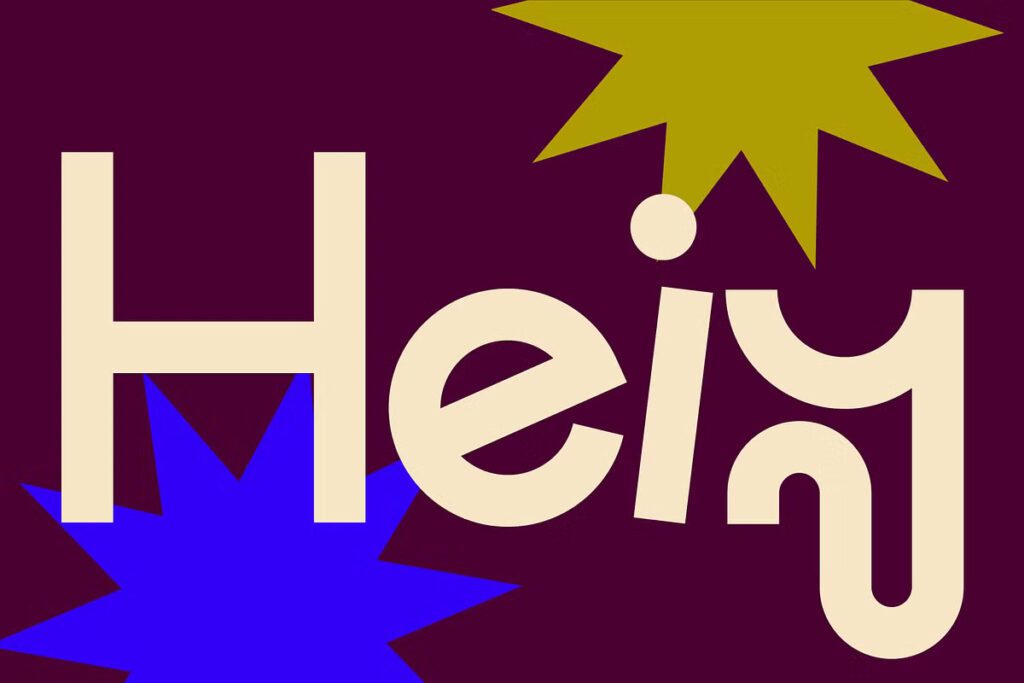
Heiy Typeface: A Playful and Characterful Display Font
When you need to inject a sense of fun and creativity into your designs, the Heiy Typeface is the perfect choice. This playful display font stands out with its unique character, making it ideal for projects that require a touch of personality. Whether you’re designing for a brand, crafting a social media post, or working on a creative project, Heiy’s engaging style will captivate your audience.
Why Choose Heiy Typeface?
Heiy offers a versatile set of features, making it a great option for designers looking for both style and functionality. The typeface includes upper and lowercase letters, numbers, and a full set of punctuation and symbols, providing everything you need to complete a vibrant design. With its playful and characterful shapes, Heiy is particularly well-suited for display purposes—think posters, advertisements, or branding projects that need a fun and lively vibe.
Key Features of Heiy Typeface:
Playful Display Design: A typeface with a lot of personality, perfect for engaging designs.
Upper and Lowercase Letters: Full support for both cases makes it versatile for various types of projects.
Punctuation & Symbols: Comes with a complete set of punctuation marks and symbols to cover all your design needs.
Best Uses for Heiy Typeface:
Branding Projects: Add a playful touch to your logos and branding materials.
Social Media Graphics: Stand out on social media with engaging and fun typography.
Posters and Advertisements: Create eye-catching, characterful posters that draw attention.
Creative Projects: Heiy is perfect for any design that needs a fun, quirky element.